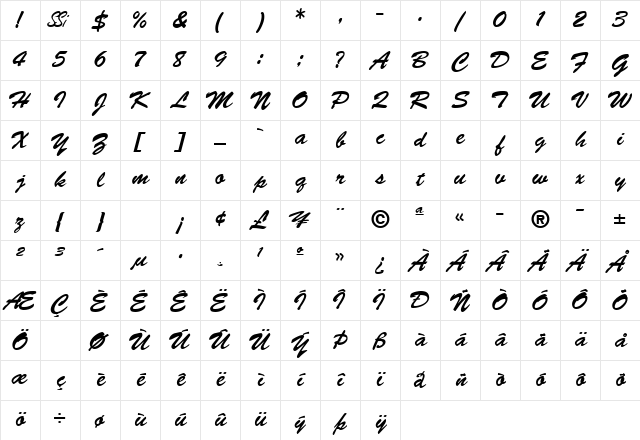
MotifScriptSSK Regular
MotifScriptSSK Family
Design Context for MotifScriptSSK
MotifScriptSSK flows with the natural rhythm of handwritten lettering, making it ideal for designs that call for warmth and personal expression.
Font Pairing: Combine MotifScriptSSK with a simple geometric sans for maximum contrast - the tension between flowing curves and clean structure is a classic typographic pairing.
Pro Tip: Use MotifScriptSSK for short runs of text - names, titles, or taglines. Extended body copy in script faces tires the eye quickly.